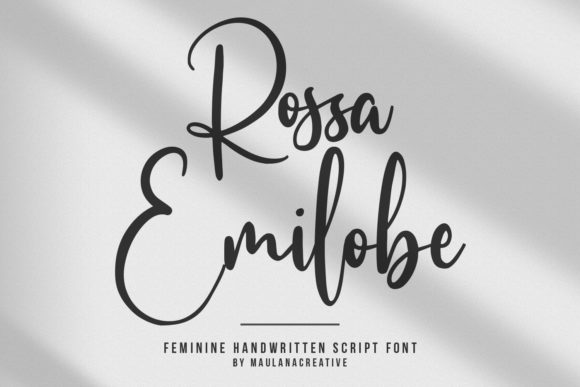
Feast your eyes on the Rossa Emilobe Font, a culinary delight for your creative endeavors! This script font, meticulously crafted by Maulana Creative, is a tantalizing treat for your graphic designs. Its medium contrast strokes dance across the page like a chef's knife creating an artistic masterpiece. Each character is a delectable morsel, infused with personality and charm that will leave your audience hungry for more.
Indulge in the font's captivating ligatures and alternates, like sprinkles on a cupcake, adding a touch of sweetness and surprise to your designs. Let the Rossa Emilobe Font be the secret ingredient that elevates your projects to gourmet status. Whether you're crafting a mouthwatering menu, a delectable packaging design, or a tempting social media post, this font will leave a lasting flavor in your viewer's minds.
Imagine your words transformed into a visual feast, a symphony of flavors for the eyes. The Rossa Emilobe Font is not just a font; it's an invitation to embark on a culinary journey, to tantalize taste buds and ignite imaginations. Its elegant curves and playful flourishes will make your designs pop like a perfectly executed soufflé.
With the Rossa Emilobe Font, you'll be the master chef of your creative kitchen, crafting designs that sizzle with style and leave your audience craving more. So, if you're ready to elevate your projects to haute couture status, download the Rossa Emilobe Font today and let your creativity run wild! Indulge in the delectable flavors of this font and watch your designs transform into culinary masterpieces.